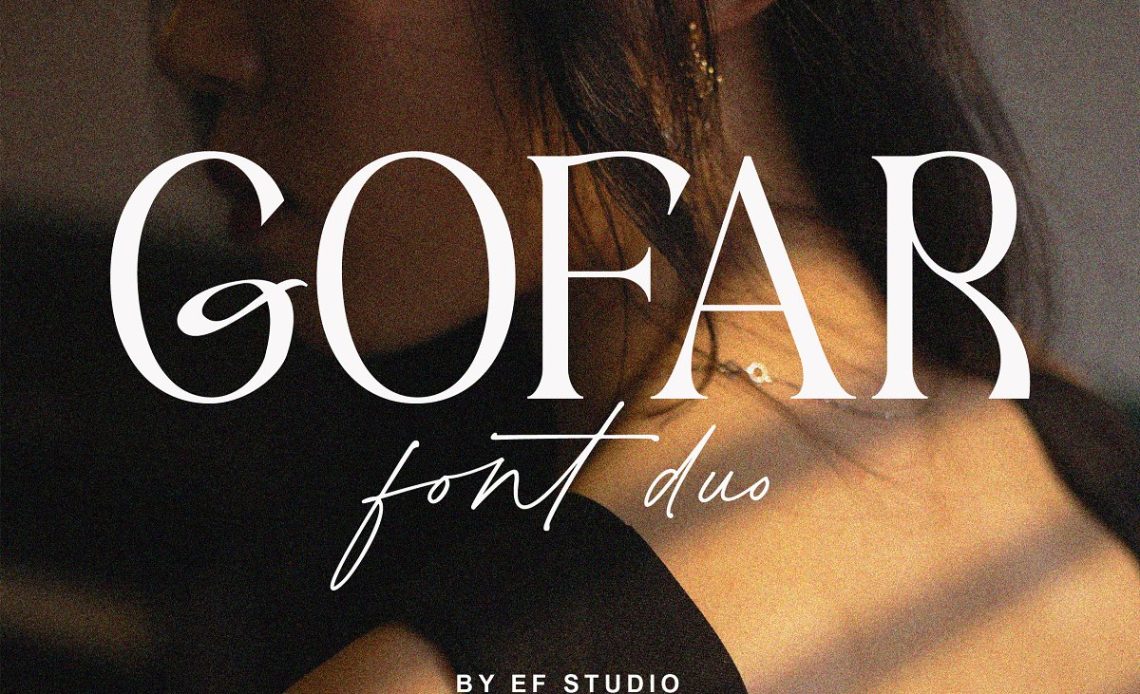
Looking for the best font to make your wedding photos stand out? Look no further than Gofar Font Duo! Created by the talented Luthfi Fauzi, this font family combines a modern and contemporary Serif font with a beautiful and stylish Script font. With unique letterforms and ligatures, Gofar is the perfect choice for all your projects, including branding, editorial design, books, logos, websites, social media, and more.